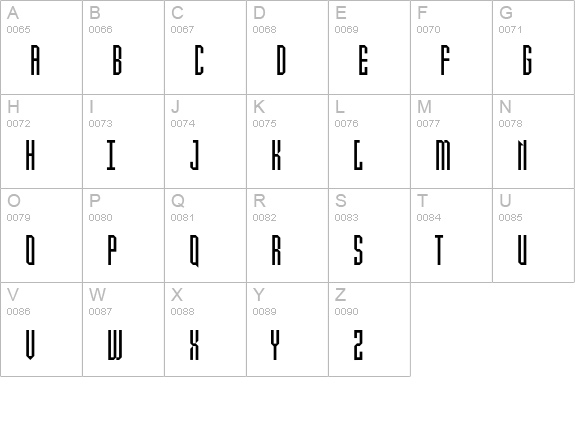
Introducing the elegant and versatile Forty-five font, a timeless typeface that exudes sophistication and charm. With its clean lines and classic appeal, Forty-five is perfect for a wide range of design projects, from logos to invitations to branding materials. This stylish font is sure to make a statement and elevate your designs to the next level. Best of all, Forty-five is available for free download exclusively at FontsMarket.com. Don't miss out on this fantastic opportunity to add a touch of class to your creations with Forty-five font.